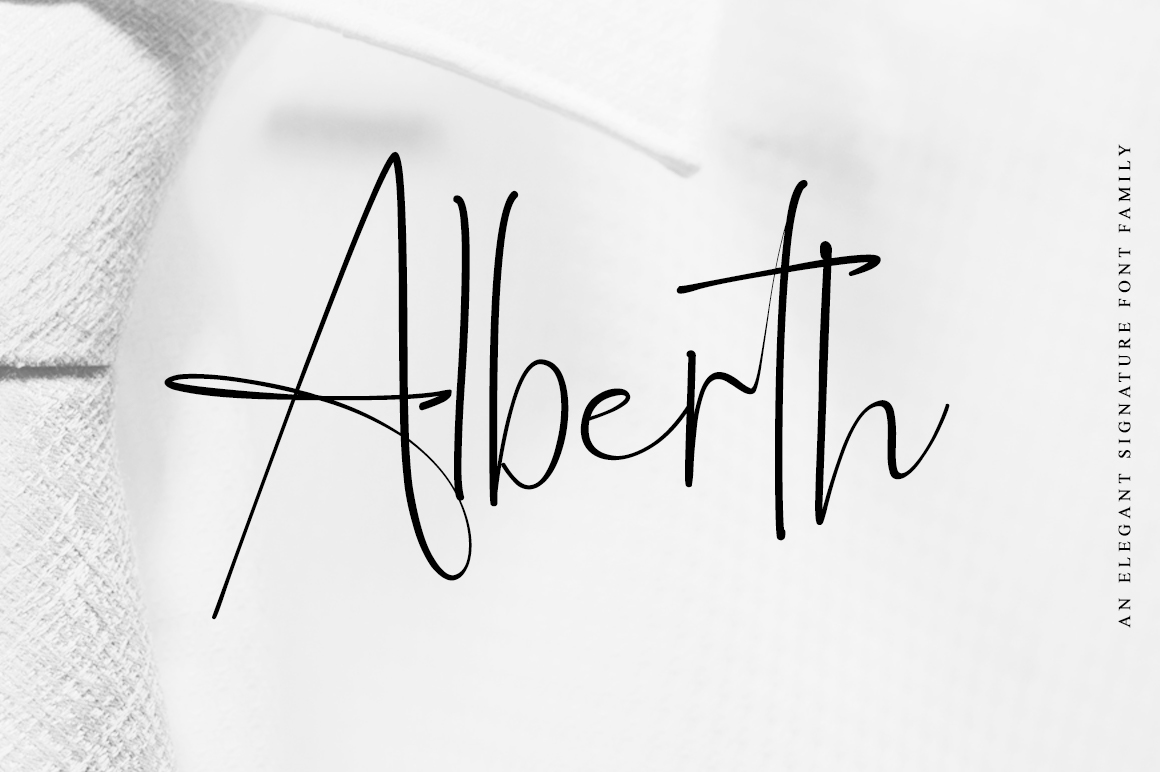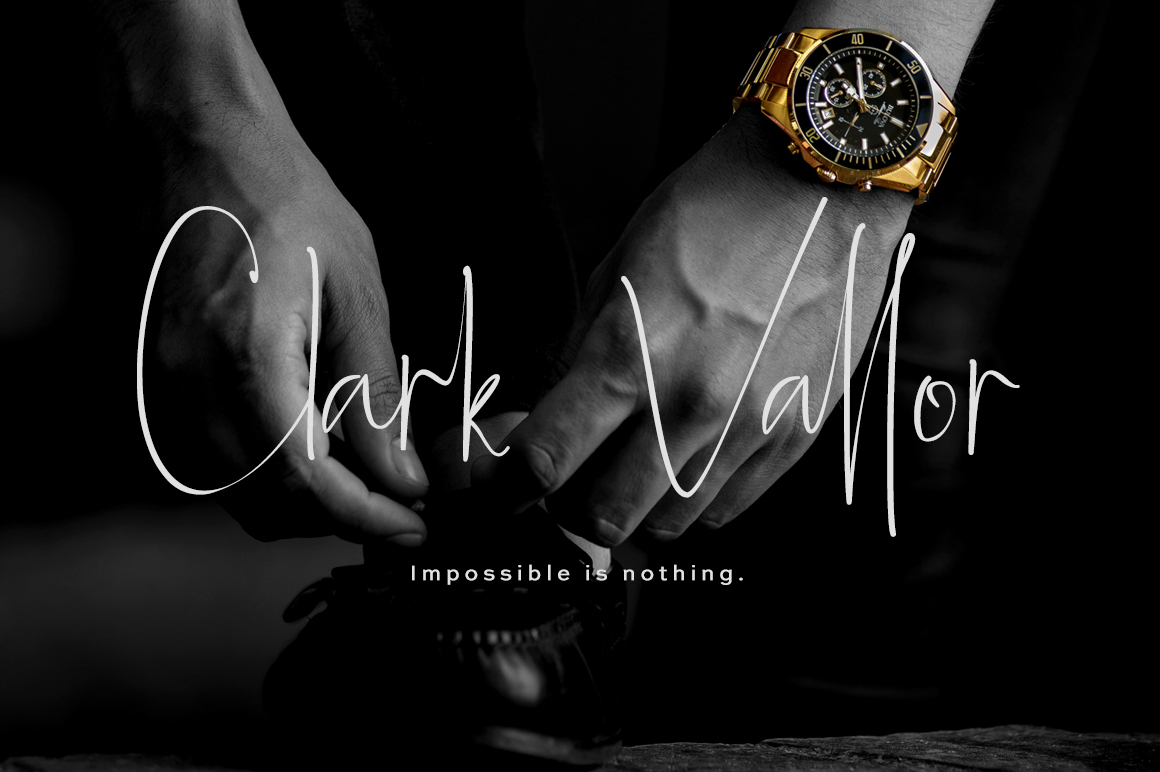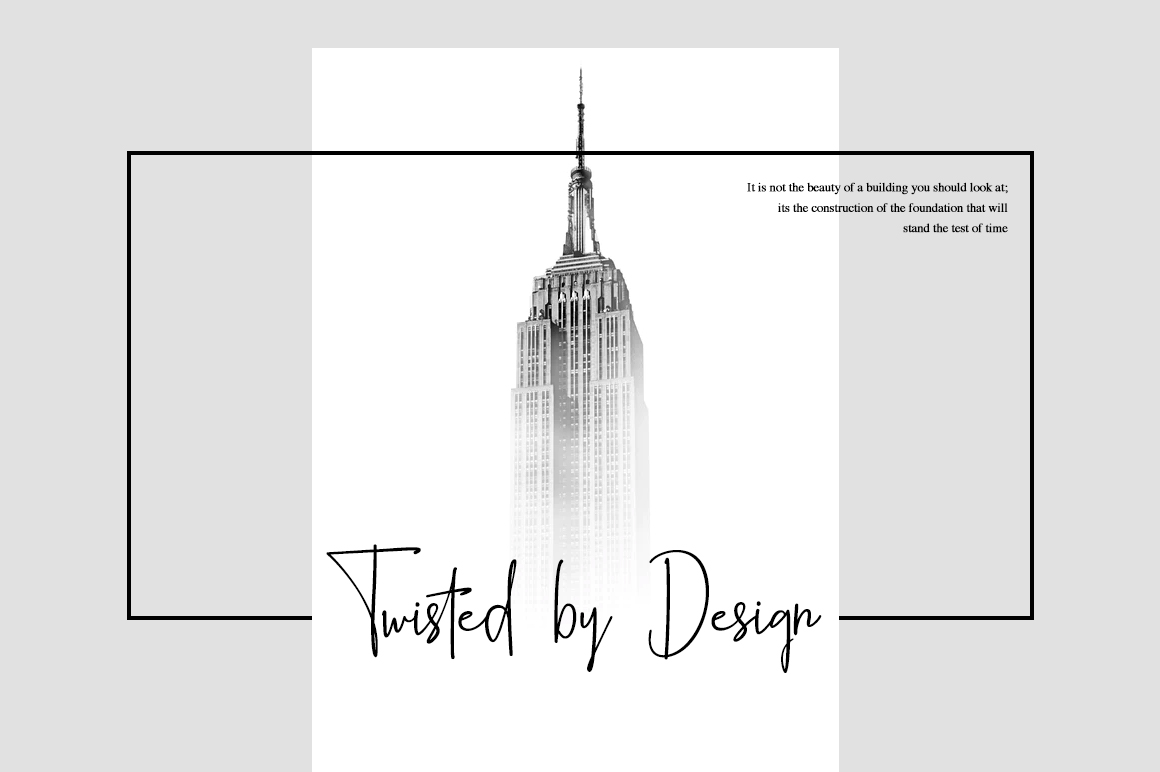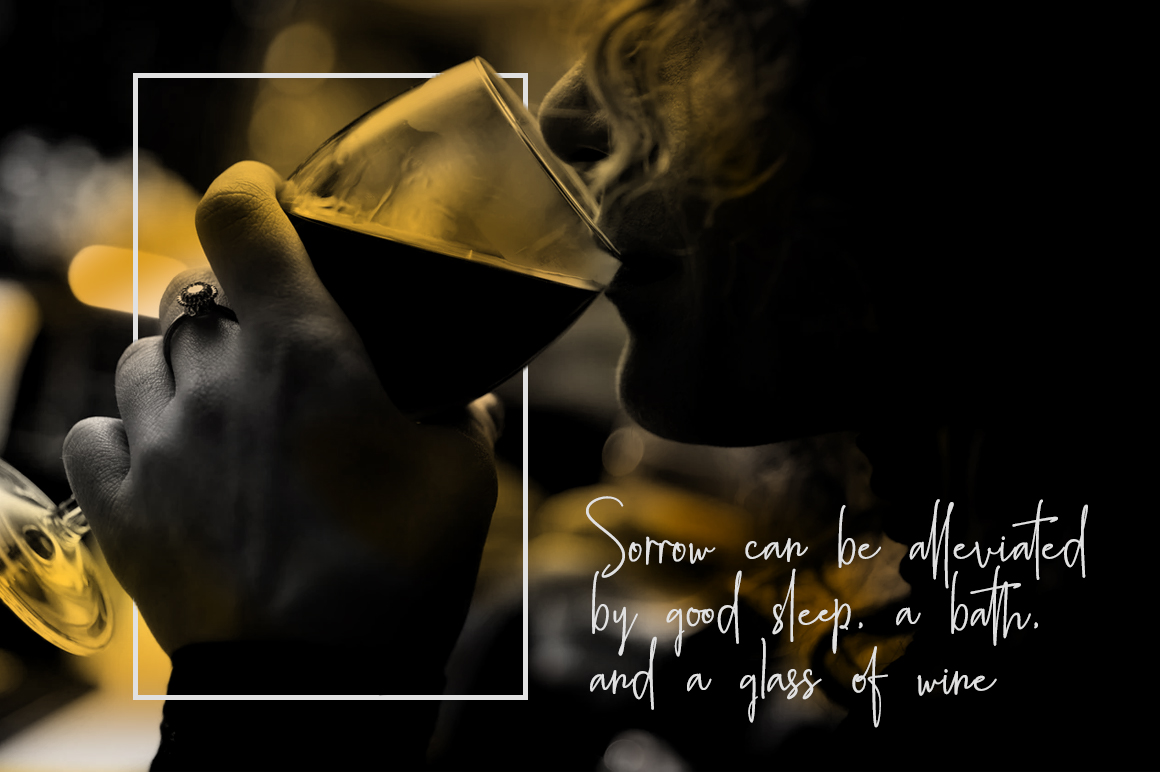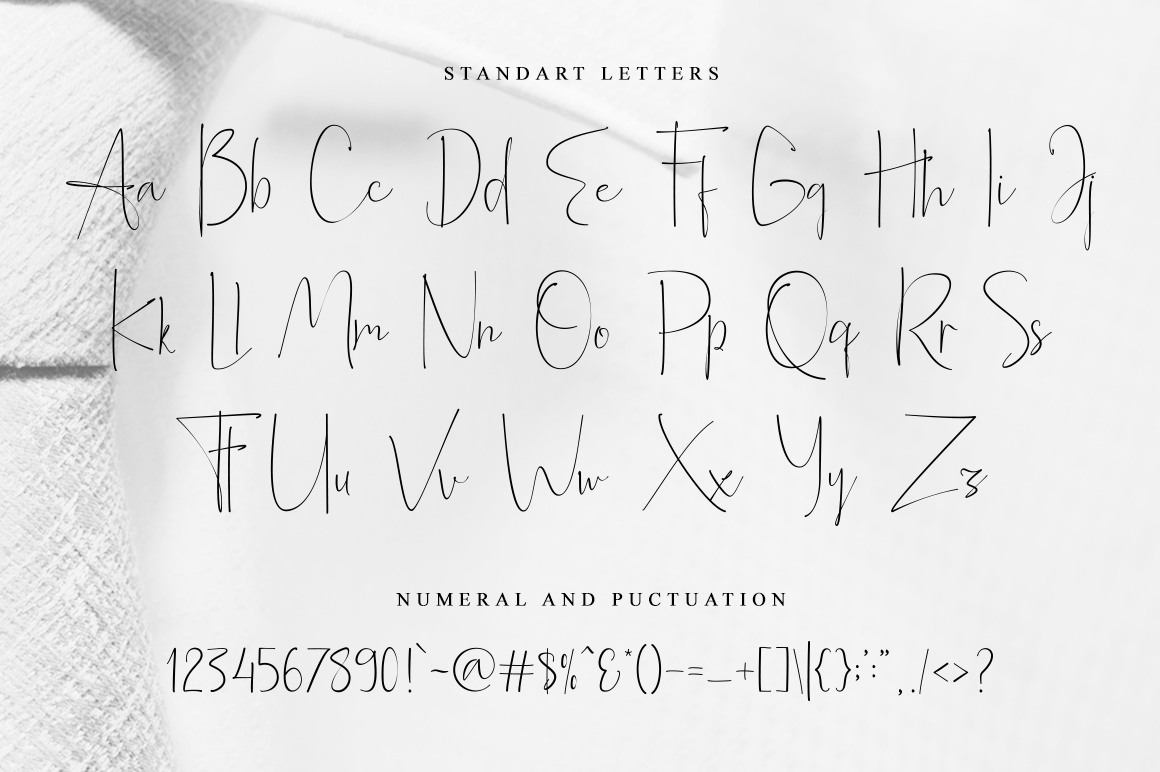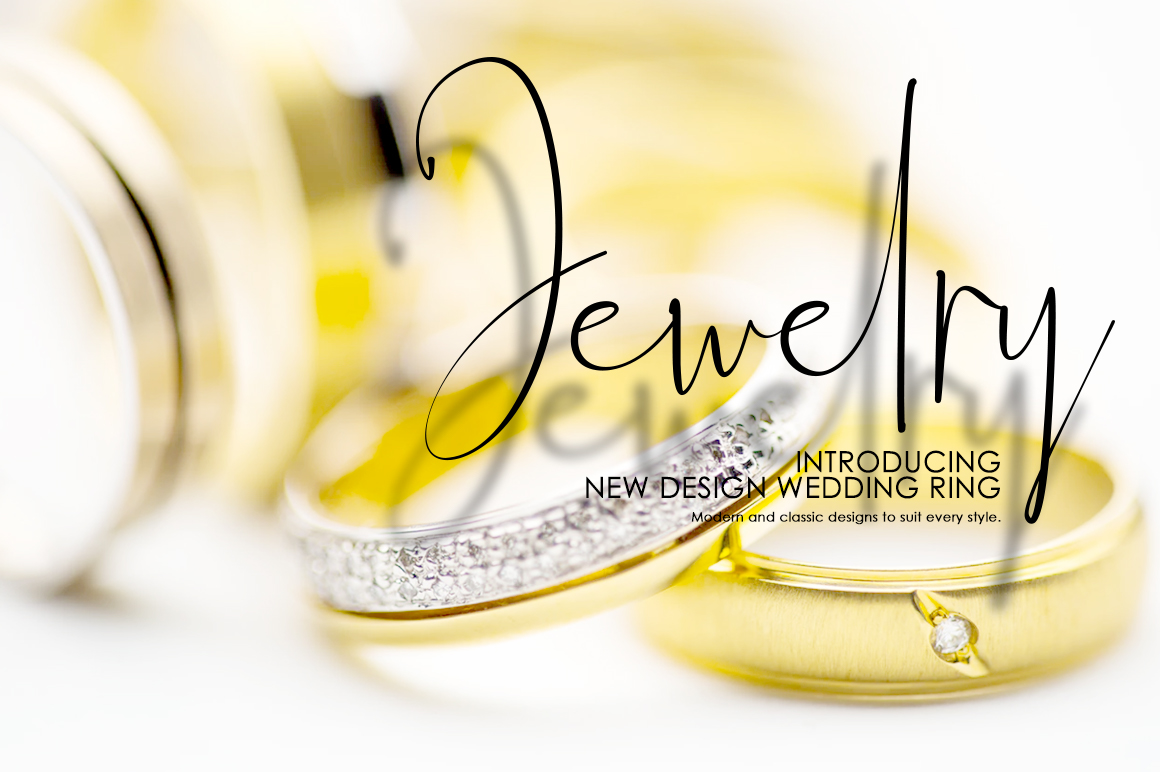
Alberth is an amazing family of unique and elegant fonts. with 119 elegant ligatures, giving your design a luxurious and classy touch. It’s perfect for logos, invitations, wedding cards, watermarks, covers, quotes, business cards, and more! – Multilingual support AÀÁÂÃÄÅCÇDÐEÈÉÌÍÎÏIÌÍÎÏNÑOØÒÓÔÕÖUÙÜÚÛWYÝŸÆßÞþ – Encoded PUA Characters – Fonts are fully accessible without additional design software.